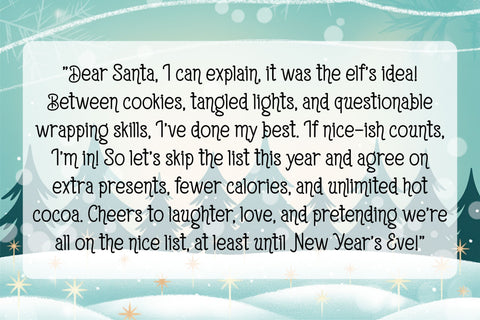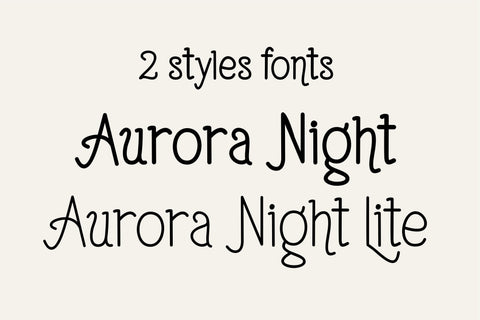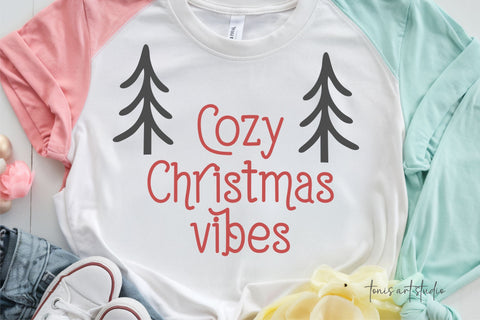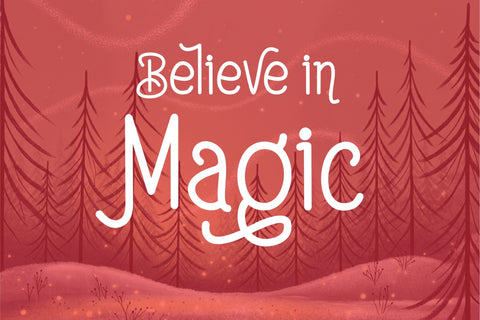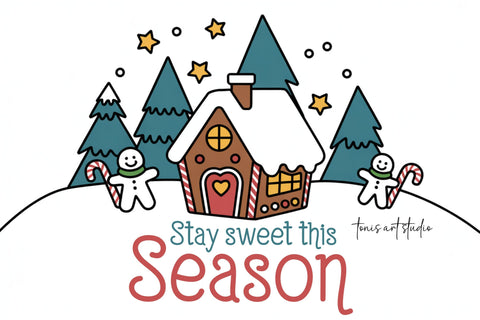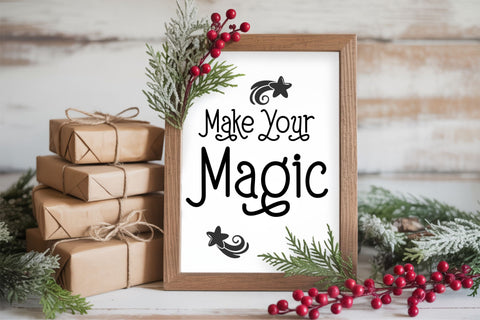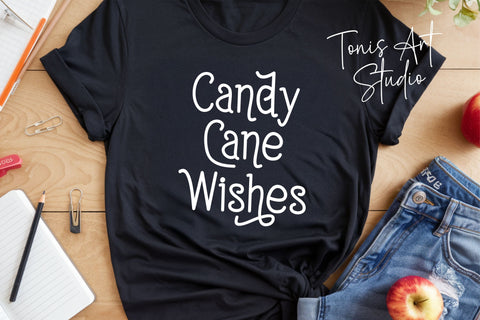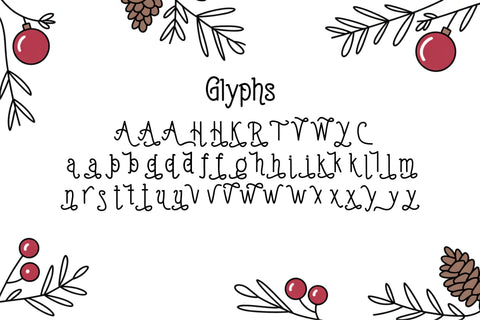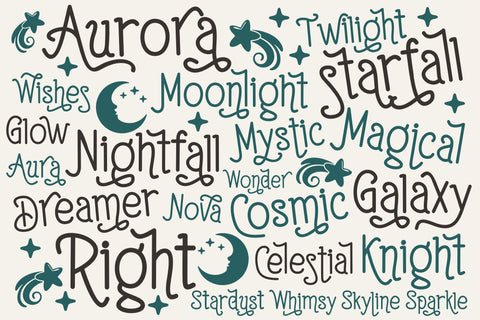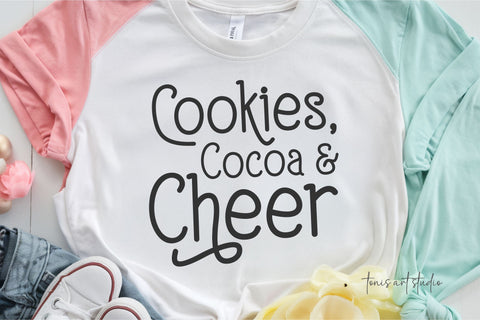
Aurora Night – Cute Celestial Handwritten Display Font
Aurora Night is a charming handwritten display font inspired by the magic of moonlight, stars, and dreamy night skies. Its curly lines, playful swashes, and soft whimsical style make it perfect for crafting projects that need a sweet and celestial touch. This font includes two styles—Regular and Lite—giving you flexible options for light and airy designs or bolder, more expressive text.
Aurora Night is ideal for Cricut and Silhouette crafters, sublimation designs, stickers, children’s prints, nursery themes, logos, greeting cards, planners, quotes, labels, KDP interiors, and seasonal artwork. Whether you're creating Christmas illustrations, magical bedtime stories, or cute character graphics, Aurora Night adds warmth, personality, and a magical glow to every project.